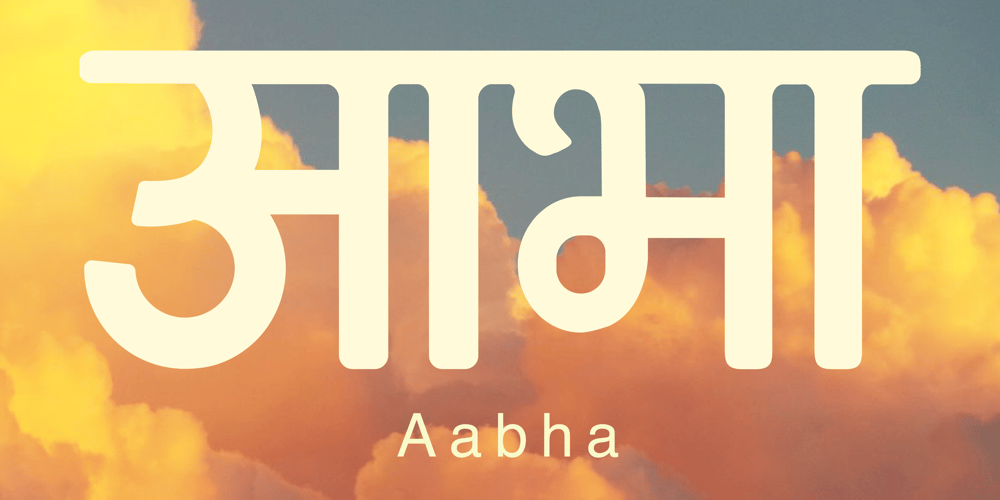
Aabha
Aabha font
Aabha Font Family was designed by Samprati Kulkarni and published by Samprati Kulkarni. Aabha contains 1 styles and family package options. Aabha is a contemporary and comfortable Devanagari display font that may be well-suited for those seeking a sleek and uncomplicated typeface. It is appropriate for use in various projects, such as logo design, posters, gift cards, T-shirts, and merchandising. Additionally, it may serve as an effective choice for headings in various publications, including books, newspapers, and billboards.